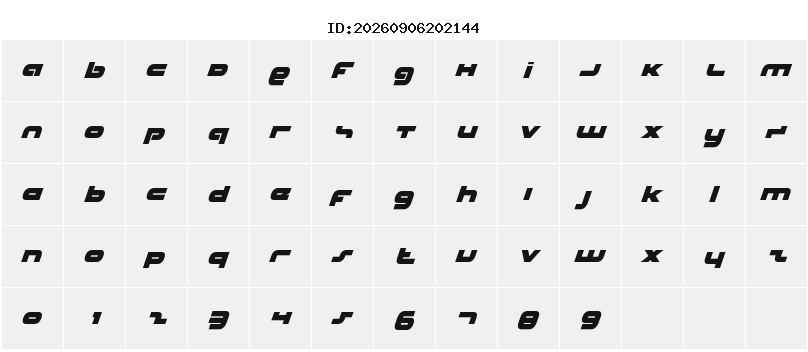
uni-sol Condensed Italic Preview
• Font Name: uni-sol Condensed Italic
• Font Style: Condensed Italic
• Full Font Name: uni-sol Condensed Italic
About uni-sol Condensed Italic.ttf
uni-sol Condensed Italic.ttf is a modern, elegant sans-serif font designed for ultimate readability and visual harmony. Perfect for branding, headlines, web design, and print materials.